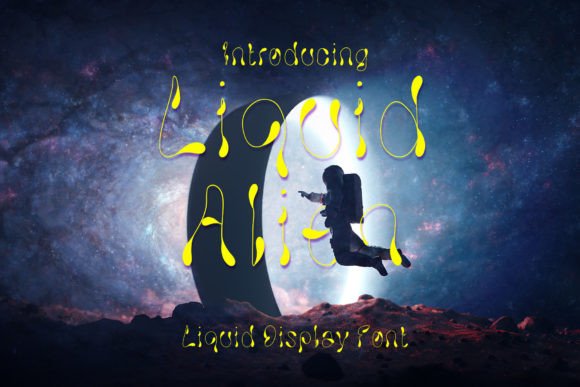
Step into the world of Liquid Alien, a display font that redefines modern design with its fluidic and futuristic charm. Each letter and character is meticulously crafted to resemble flowing liquid, creating an organic and unconventional impression. As a designer, you'll revel in the freedom to experiment with this font, pushing the boundaries of creativity and creating designs that stand out from the crowd.
Let your imagination soar as you explore the endless possibilities of Liquid Alien's versatile nature. Whether you're working on graphic designs, posters, branding, or any other project that demands attention, this font will add a touch of modernity and visual intrigue. Its captivating forms command attention, making your designs impossible to ignore.
Embrace the future of design with Liquid Alien, the font that embodies innovation and aesthetic flair. Unleash your creativity and craft designs that leave a lasting impression. Don't settle for ordinary fonts; dive into the world of Liquid Alien and let your imagination run wild.
With its flowing lines and striking appearance, Liquid Alien transforms your designs into captivating masterpieces. Say goodbye to bland and conventional fonts and embrace the fluidity and uniqueness that Liquid Alien brings. Dare to be different, dare to be bold, and let your designs speak volumes with this extraordinary font.